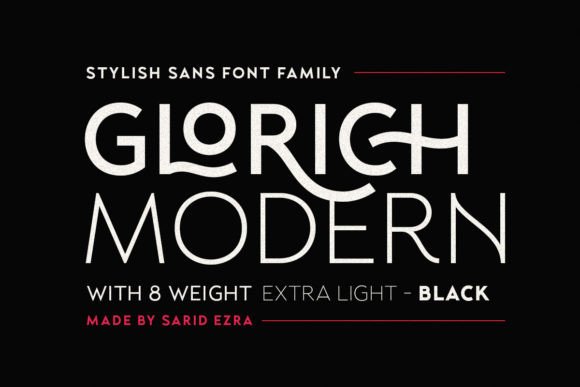
Glorich: A Modern Sans Serif for Elegant Design
When I began redesigning my lifestyle blog, I knew the right font could transform the entire reading experience. After testing several options, I landed on Glorich—a classic and modern all-caps sans serif that brings a refined energy to any layout. Its subtle variations in uppercase letters make it feel both familiar and fresh, perfect for creating visual interest without sacrificing clarity.
Glorich’s clean lines and balanced structure give it a timeless quality, while its ligatures and alternates add a touch of personality. It’s not just a font; it’s a tool for shaping tone and mood. Whether I was designing a header for a post about mindful living or crafting a newsletter graphic for a seasonal guide, Glorich consistently delivered a sense of sophistication and readability.
Visual Character and Editorial Appeal
Glorich has a quiet confidence. Its sans serif form is sleek and uncluttered, making it ideal for digital and print projects where simplicity matters. The slight differences in uppercase letters—like the way an "A" might tilt slightly or a "B" might have a softer curve—add a layer of visual intrigue. These details don’t distract; they enhance, offering a subtle nod to craftsmanship without overwhelming the reader.
Its rhythm is smooth and easy to follow, which makes it well-suited for titles and headings. But it also works surprisingly well in longer text when paired correctly. For instance, I used it for a recipe ebook’s chapter openers, where its clarity helped readers focus on the content while still feeling inspired by the design.
Practical Uses in Editorial Design
I found Glorich particularly useful for blog headers and article titles. Its bold, all-caps style commands attention without being too aggressive. When I designed a wedding guide, I used it for section headings, giving each chapter a distinct identity while maintaining a cohesive look across the entire publication.
For a printable planner, I experimented with using Glorich for daily quotes and motivational phrases. The font’s clean aesthetic made it feel approachable and professional at the same time. It worked well as a decorative accent, adding a touch of elegance without competing with the rest of the design.
In a digital magazine layout, I paired Glorich with a soft serif font for body copy. The contrast between the two fonts created a clear visual hierarchy, guiding the reader through the content with ease. This pairing also reinforced the publication’s brand identity, making it instantly recognizable.
Readability and Versatility
One of the things I appreciate most about Glorich is how it performs across different formats. On screen, it remains legible even at smaller sizes, which is essential for mobile layouts. In PDFs, it maintains its sharpness, ensuring that printed materials look just as good as their digital counterparts.
For long-form content, I recommend using Glorich sparingly—reserving it for headings, pull quotes, and section titles. When used in body text, it can feel a bit stark, especially in dense paragraphs. That said, with careful spacing and thoughtful pairing, it can still work effectively in certain editorial contexts.
It’s also worth noting that Glorich supports multiple languages, which is a big plus for international projects. Whether I was designing a bilingual newsletter or a multilingual course PDF, the font handled the extra characters with grace and consistency.
Font Pairing and Design Assets
When working with Glorich, I always start by considering what other fonts will complement it. A clean, readable serif font like Georgia or Merriweather makes a great partner for body text, while a minimalist sans serif like Lato or Open Sans can serve as a reliable companion for captions and navigation elements.
For a more creative approach, I’ve paired Glorich with a script font for decorative accents, such as in a wedding guide’s invitation templates. The contrast between the structured sans serif and the flowing script adds depth and visual variety, making the design more engaging without feeling chaotic.
Before finalizing any project, I always check the font’s available styles, alternates, and ligatures. These features can make a big difference in how the font feels and functions. For example, using alternate letterforms in a headline can add a unique flair, while ligatures help maintain a polished look in longer text.
For independent creators, Glorich offers a versatile foundation for building brand identity. Whether you're designing a coaching workbook, a printable planner, or a course PDF, the font’s clean aesthetic and strong character make it a reliable choice for a wide range of editorial needs.
As I continue to explore new ways to use Glorich, I’m consistently impressed by its ability to elevate the design without overshadowing the content. It’s a rare find in the world of typography—a font that feels both modern and timeless, perfect for anyone looking to create a more thoughtful and engaging reading experience.